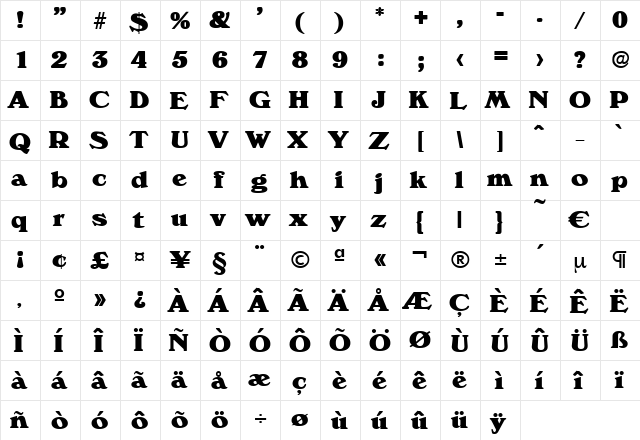
Verona-ExtraBold Regular
Design Context for Verona-ExtraBold Typeface
Verona-ExtraBold takes a measured approach to typography — its balanced proportions and neutral character make it a reliable workhorse for both digital and print work. The heavy weight commands attention and anchors typographic hierarchies.